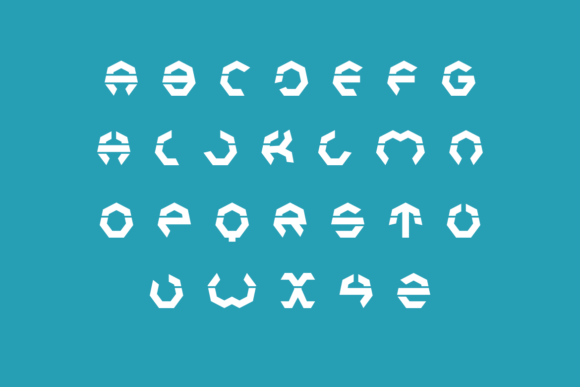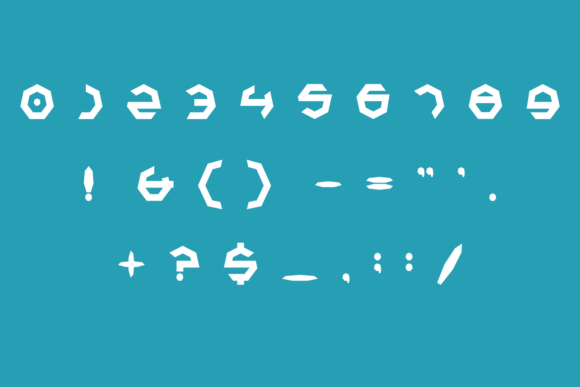
Introduction to Opang Font
You know that moment when a single element can elevate your entire creative project? For designers, it’s often about finding the perfect font to bring their vision to life. And that’s where Opang Font comes in – a modern and bold display font that’s sure to make a statement.
Imagine a high-quality font that can stand out on a transparent background, effortlessly conveying the message you want to convey. With its unique style and versatility, Opang Font is an invaluable design resource that can be used across various creative projects. Whether you’re working on a graphic design project, creating a logo, or crafting a digital advertisement, this font is sure to impress. And the best part? It’s available for a free download, making it an accessible asset for designers of all levels.
Key Features of Opang Font
- High-quality design: Opang Font offers a unique and modern aesthetic, perfect for creative projects that require a touch of sophistication.
- Transparent background: This feature allows for seamless integration with any design resource, making it easy to create visually appealing compositions.
- Unique characteristics: Opang Font features a distinctive blend of geometric and organic elements, giving it a one-of-a-kind look that sets it apart from other fonts.
Honest Review: Opang Font
As a designer, I’m always on the lookout for high-quality design resources to elevate my creative projects. The Opang Font is a great addition to my collection, and I’m excited to share my thoughts with you.
- ✨ Beautifully crafted glyphs that add a touch of elegance to any design
- ✨ High quality, clear typography that’s perfect for body text or headings
One of the standout features of the Opang Font is its transparent background, which allows for seamless integration with any design element. Whether you’re working on a logo, branding materials, or a creative project, this font is sure to impress.
- ⚠️ Limited language support, which may be a concern for designers working on international projects
- ⚠️ Not as extensive a character set as some other fonts, which may limit its use in certain contexts
Overall, I’m thoroughly impressed with the Opang Font. Its high quality and free download make it an excellent resource for designers, and its beautiful typography is sure to elevate any creative project. While it may have some limitations, I highly recommend adding it to your design arsenal.
Tips for Getting the Most Out of Opang Font
Experiment with different font sizes, colors, and styles to get the most out of the Opang Font. Use it to create a cohesive design look across your project, and don’t be afraid to mix it with other fonts for added visual interest.
The Opang Font is a versatile design resource that can be used in a variety of creative projects, including branding, marketing materials, and digital designs. Its transparent background and high-quality design make it a great choice for designers looking to add a professional touch to their work.